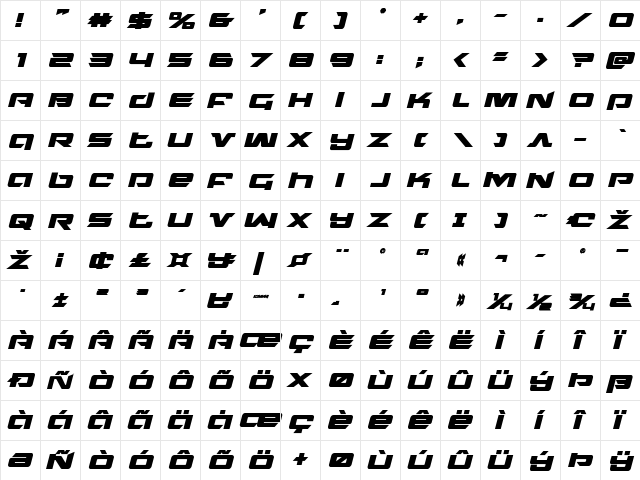
Northstar Bold Italic Bold Italic
Bold Italic ·  Daniel Zadorozny ·
DesignerDaniel Zadorozny
Design Context for Northstar Bold Italic Typeface
Northstar Bold Italic is a composed and adaptable typeface that performs quietly and consistently across a wide range of design contexts. The dynamic lean of this cut emphasises speed and emphasis in any layout. Its bold stroke weight gives it real presence on the page.
Pro Tip: Try Northstar Bold Italic for annotation and caption copy alongside an upright companion — the contrast in angle creates a dynamic but ordered typographic system.